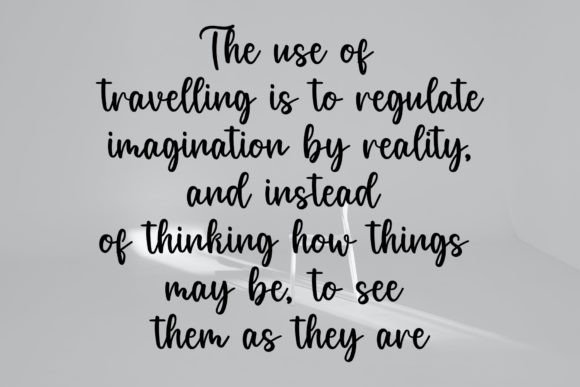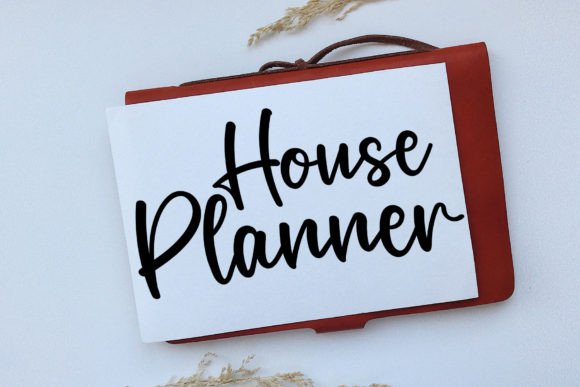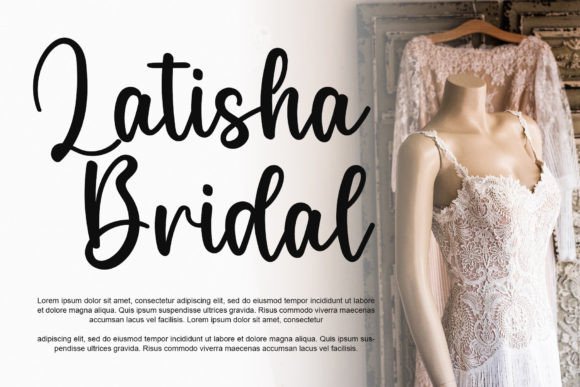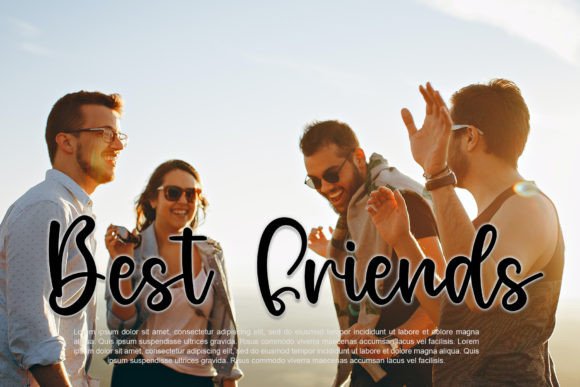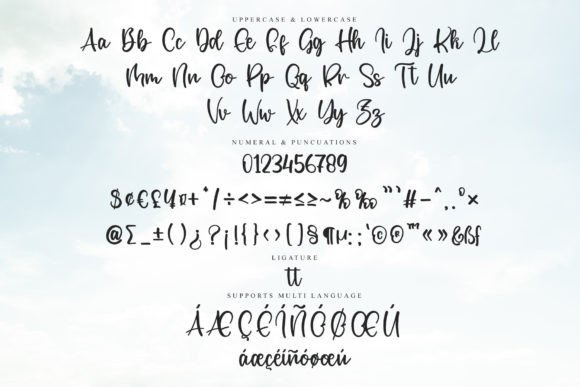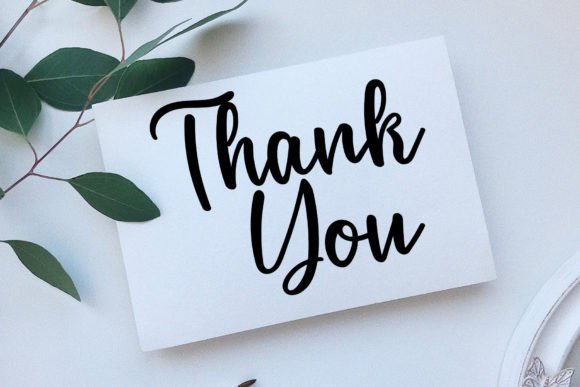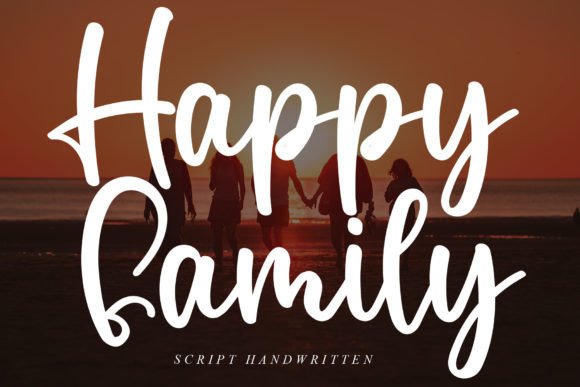
Introducing Happy Family Font: The Perfect Addition to Your Design Arsenal
Are you tired of using the same old fonts in your designs? Look no further! Happy Family Font is a playful and charming handwritten font that is sure to add a special touch to any design idea you can think of. With its unique and elegant style, this font has the potential to bring each of your creative ideas to the highest level.
What Makes Happy Family Font So Special?
Happy Family Font is a masterfully designed font that is both playful and charming. Its handwritten style gives it a personal and approachable feel, making it perfect for designs that require a touch of warmth and personality. Whether you’re working on a branding project, a wedding invitation, or a craft project, Happy Family Font is sure to make your design stand out.
Key Features of Happy Family Font
- Playful and Charming: Happy Family Font has a unique and elegant style that is sure to add a touch of personality to your designs.
- Handwritten Style: The font’s handwritten style gives it a personal and approachable feel, making it perfect for designs that require a touch of warmth and personality.
- Versatile: Happy Family Font can be used for a wide range of design projects, from branding and advertising to wedding invitations and craft projects.
- Easily Readable: The font is designed to be easily readable, making it perfect for use in both digital and print designs.
How to Use Happy Family Font in Your Designs
Happy Family Font is incredibly versatile and can be used in a wide range of design projects. Here are a few ideas to get you started:
- Branding and Advertising: Use Happy Family Font to add a touch of personality to your brand’s logo, marketing materials, and advertisements.
- Wedding Invitations: Add a touch of elegance and sophistication to your wedding invitations with Happy Family Font.
- Craft Projects: Use Happy Family Font to add a personal touch to your craft projects, such as handmade cards, gift tags, and scrapbooking pages.
- Digital Designs: Happy Family Font can be used in digital designs, such as social media graphics, blog posts, and email newsletters.
Why Designers and Crafters Love Happy Family Font
Designers and crafters love Happy Family Font for its unique and elegant style. Here are a few reasons why:
- Unique Style: Happy Family Font has a unique and elegant style that sets it apart from other fonts.
- Easily Customizable: The font is easily customizable, making it perfect for designers and crafters who want to add their own personal touch to their designs.
- Time-Saving: Happy Family Font is a time-saving solution for designers and crafters who want to create beautiful designs without spending hours searching for the perfect font.
In conclusion, Happy Family Font is a playful and charming handwritten font that is sure to add a special touch to any design idea you can think of. With its unique and elegant style, this font has the potential to bring each of your creative ideas to the highest level. Whether you’re a designer or crafter, Happy Family Font is a must-have addition to your design arsenal.